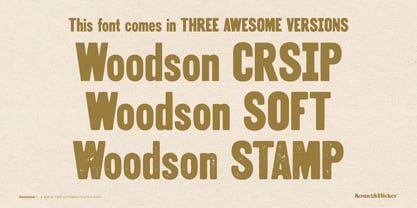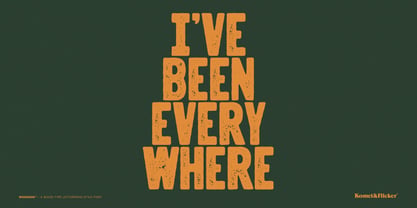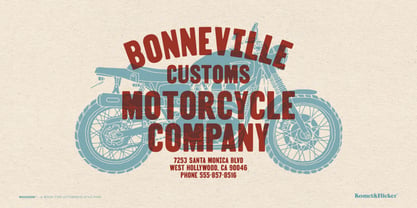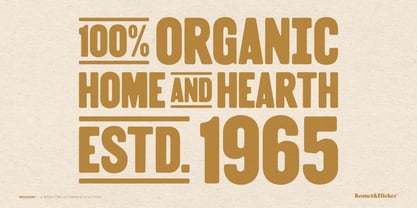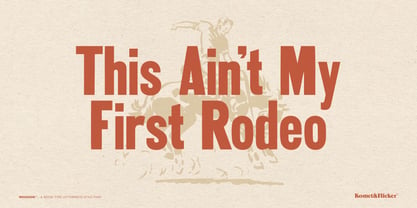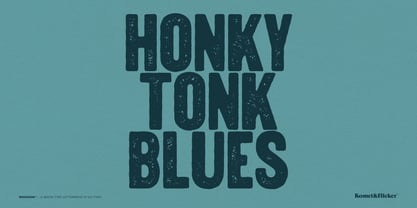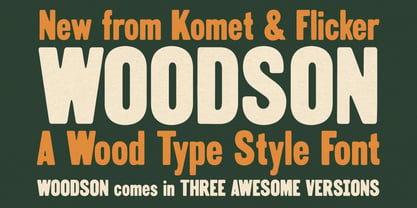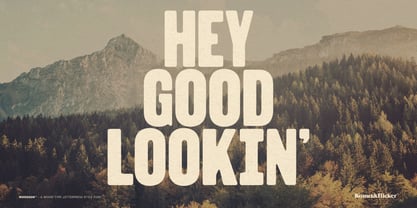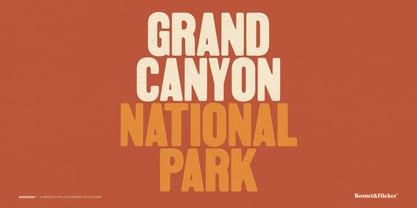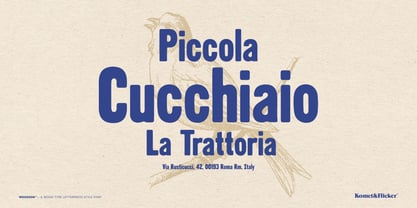
Woodson
Bring bold character and timeless charm to your design projects with Woodson, a vintage-inspired font crafted with the spirit of classic wood type letterpress printing. Perfect for everything from posters and logos to packaging and signage, Woodson captures the tactile beauty of hand-set type with a modern twist.
Three Bold Styles, One Timeless Look: Woodson comes in three distinct styles:
• Woodson Crisp: Clean, sharp edges for a bold, striking impression
• Woodson Soft: Rounded corners for a warm, worn-in feel
• Woodson Rough Stamp: For an authentic weathered stamped look
Designed for Flexibility: Woodson also includes a full set of lowercase letters, giving you more versatility and control over your typographic tone.
Custom Connecting Words: To make your layouts even more dynamic, Woodson includes 20 custom connecting words (like "and", "of", "the", etc.), designed to flow seamlessly between your main text for an authentic, handcrafted look.
Whether you're going for cozy nostalgia or bold retro energy, Woodson has you covered.
• Full A-Z upper and lowercase basic latin characters
• Select European characters
• Numbers, punctuation, and select symbols
• Set of 20 custom connecting word glyphs
• Alternate glyphs for the cap I, J, and R